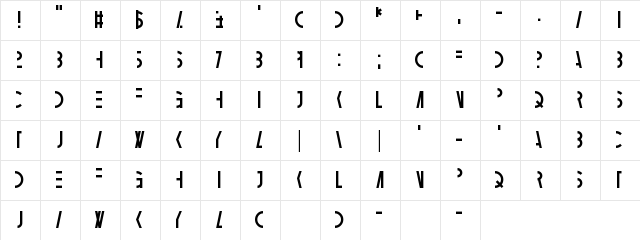
Ambidextrose Regular Free Font
Ambidextrose Regular
Design Context for Ambidextrose
Ambidextrose is a composed and adaptable typeface that performs quietly and consistently across a wide range of design contexts.
Pro Tip: Use Ambidextrose in both headline and body roles to test its range before committing to a single application.